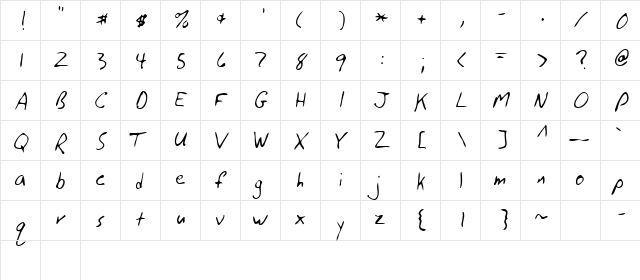
Mack Regular Font Preview
Mack Regular
Design Context for Mack Typeface
Mack takes a measured approach to typography — its balanced proportions and neutral character make it a reliable workhorse for both digital and print work.